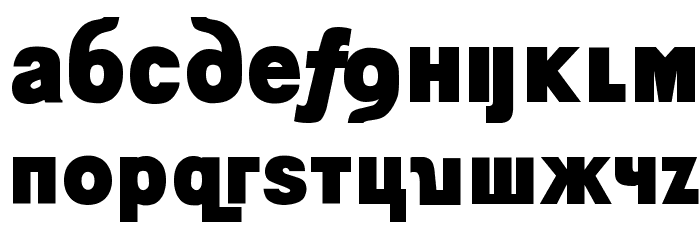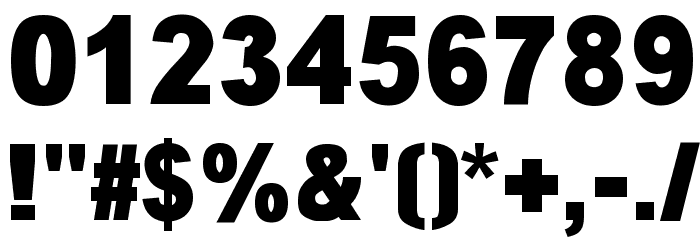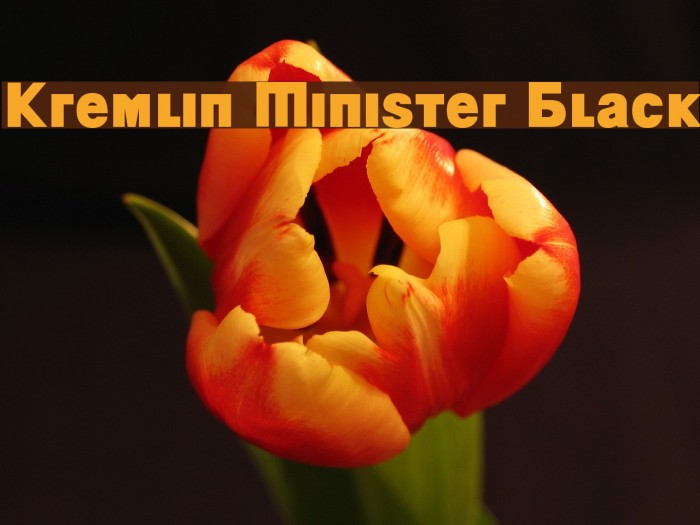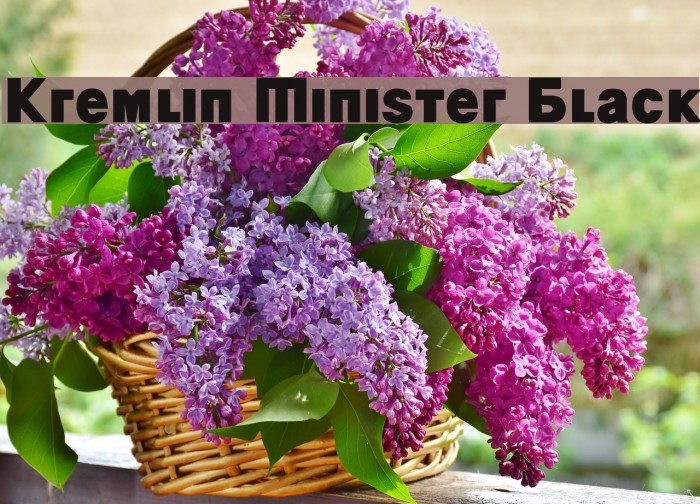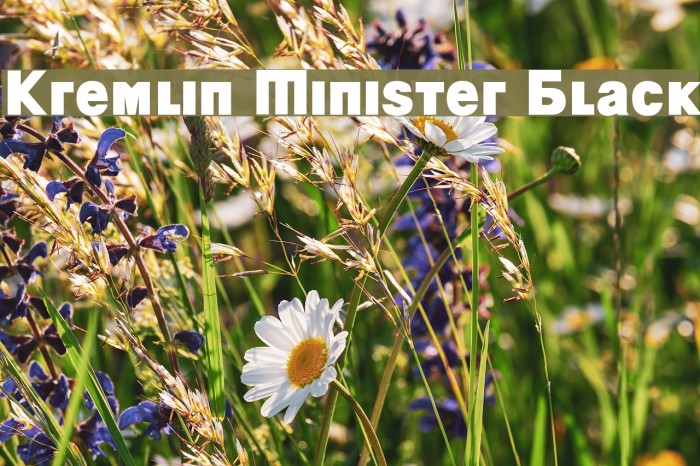
Kremlin Minister Black Font
This font features a bold and impactful design with strong geometric shapes and a distinct presence. The characters are wide and blocky, providing a sense of stability and strength. The uppercase letters are particularly striking, with a uniform height and width that create a cohesive look. The lowercase letters maintain the boldness of the uppercase, with some unique curves and angles that add character. The numerals are equally bold, ensuring visibility and readability. Special characters are designed to match the overall aesthetic, making them suitable for various applications. The font's style is reminiscent of Soviet-era typography, with a modern twist that makes it suitable for contemporary use.
A bold, geometric font with a strong, impactful presence.
- Font: Kremlin Minister Black